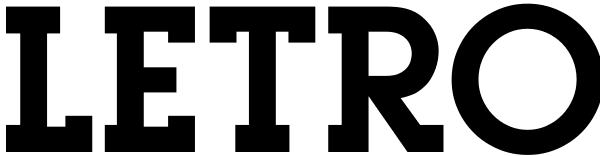
Letro
Letro’s sturdy, slab serif form and sleek alternates make it perfect for any sort of display, whether it’s professional or personal, casual or serious, big, small, on a computer screen or on paper. Letro does everything: elegant while slightly...
Letro
Letro Light